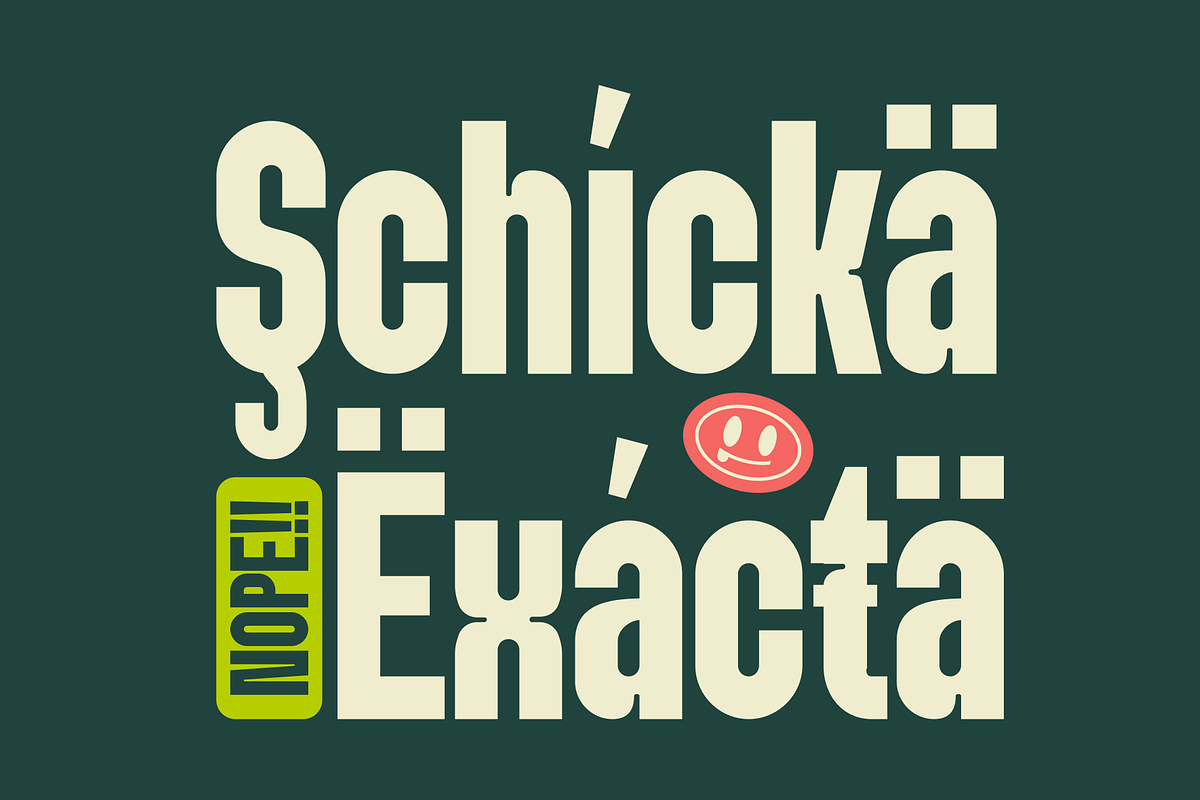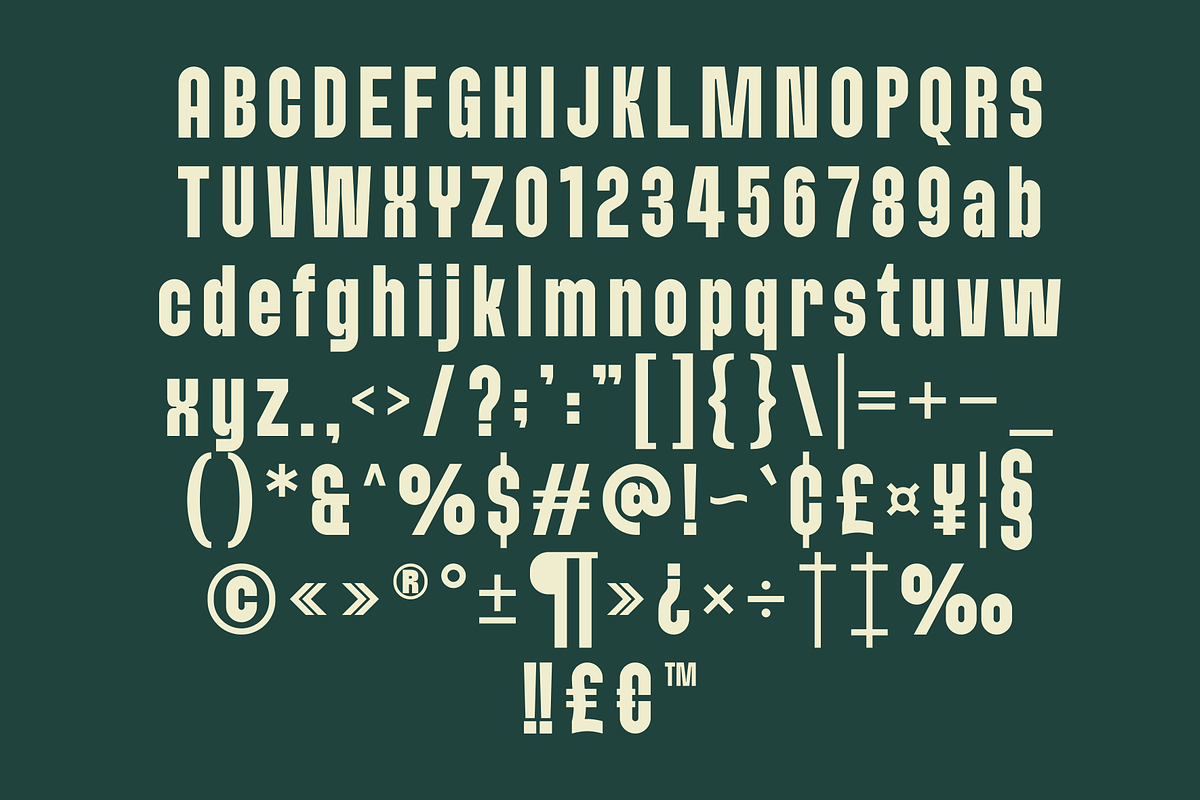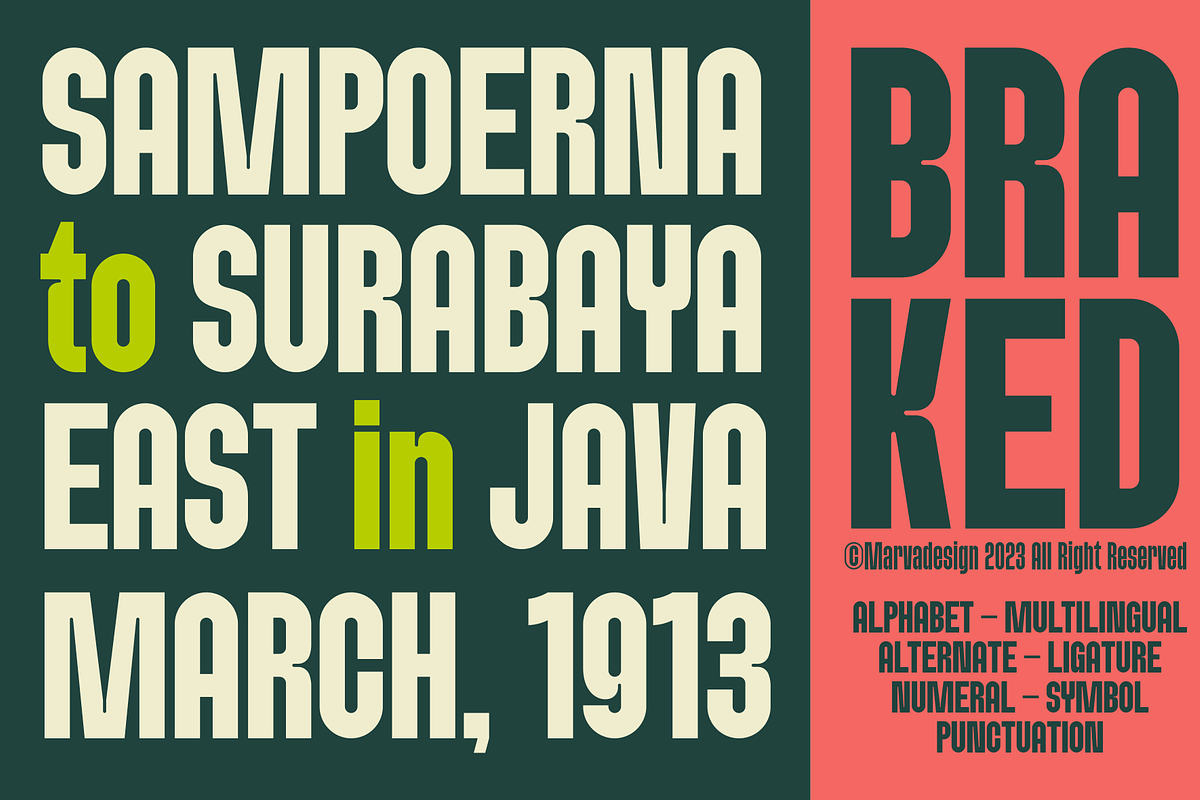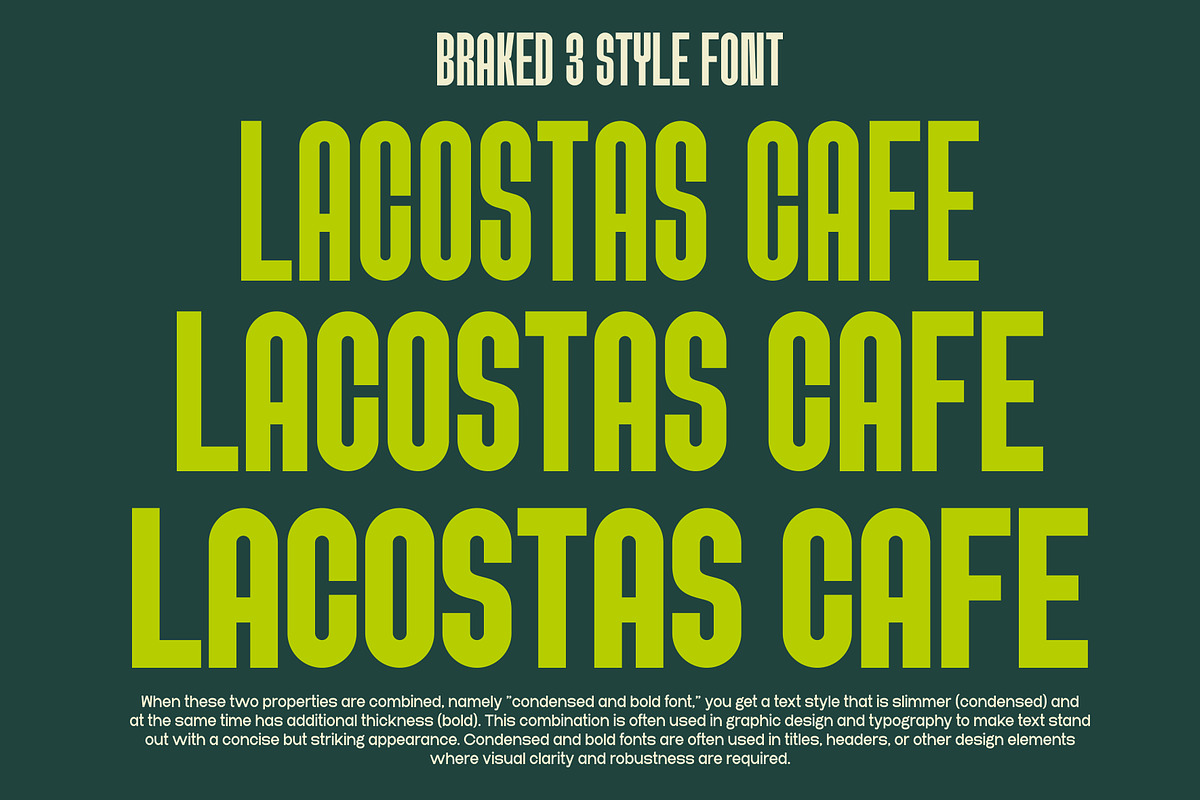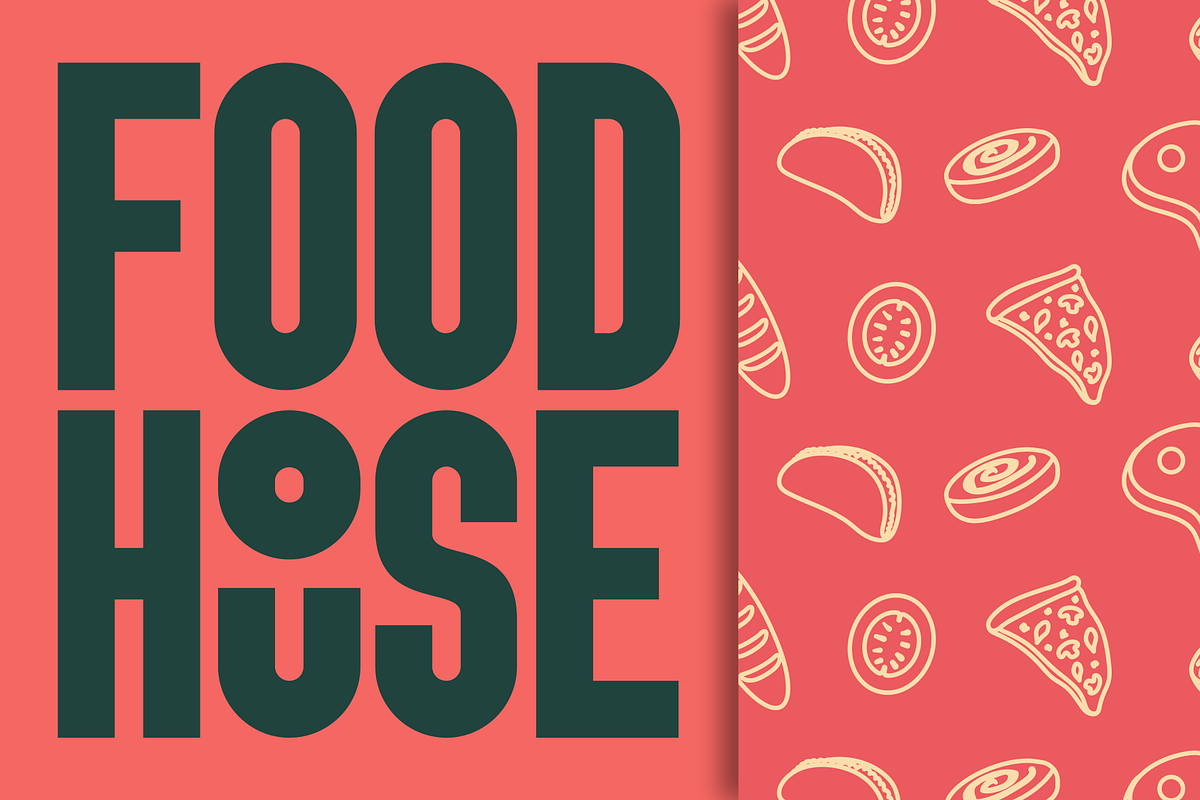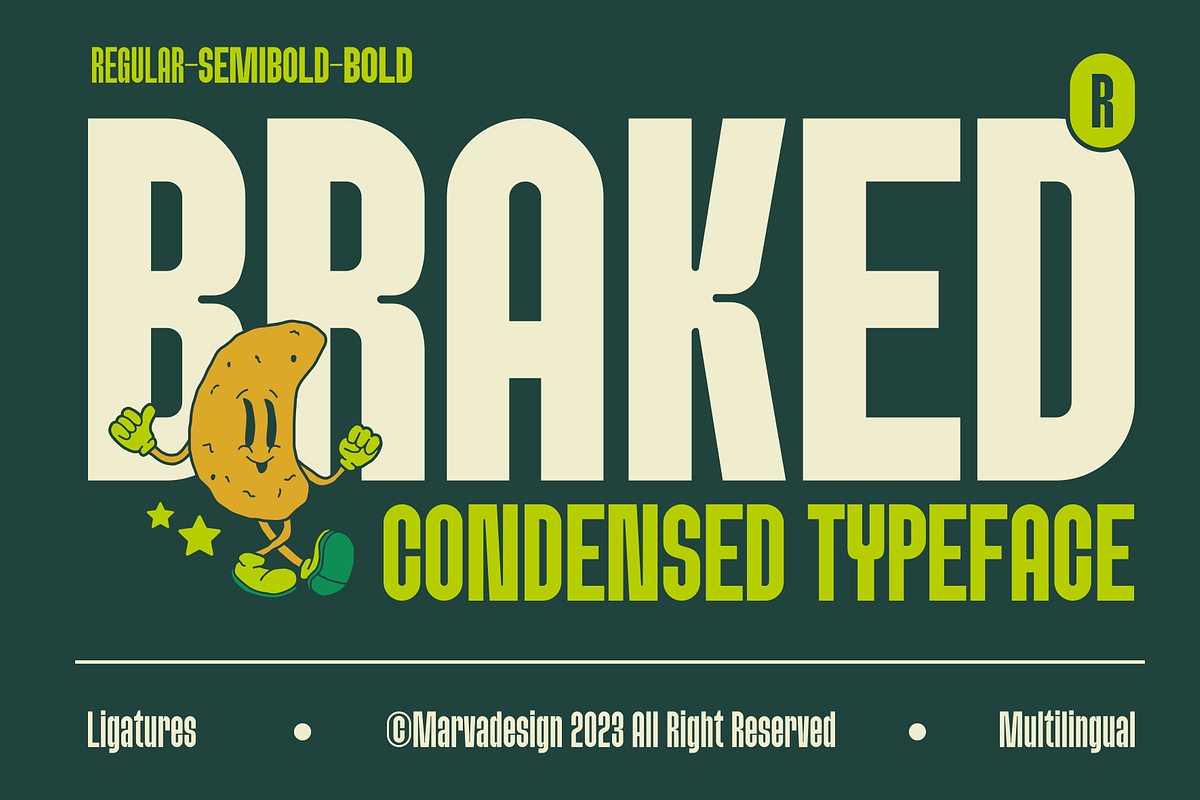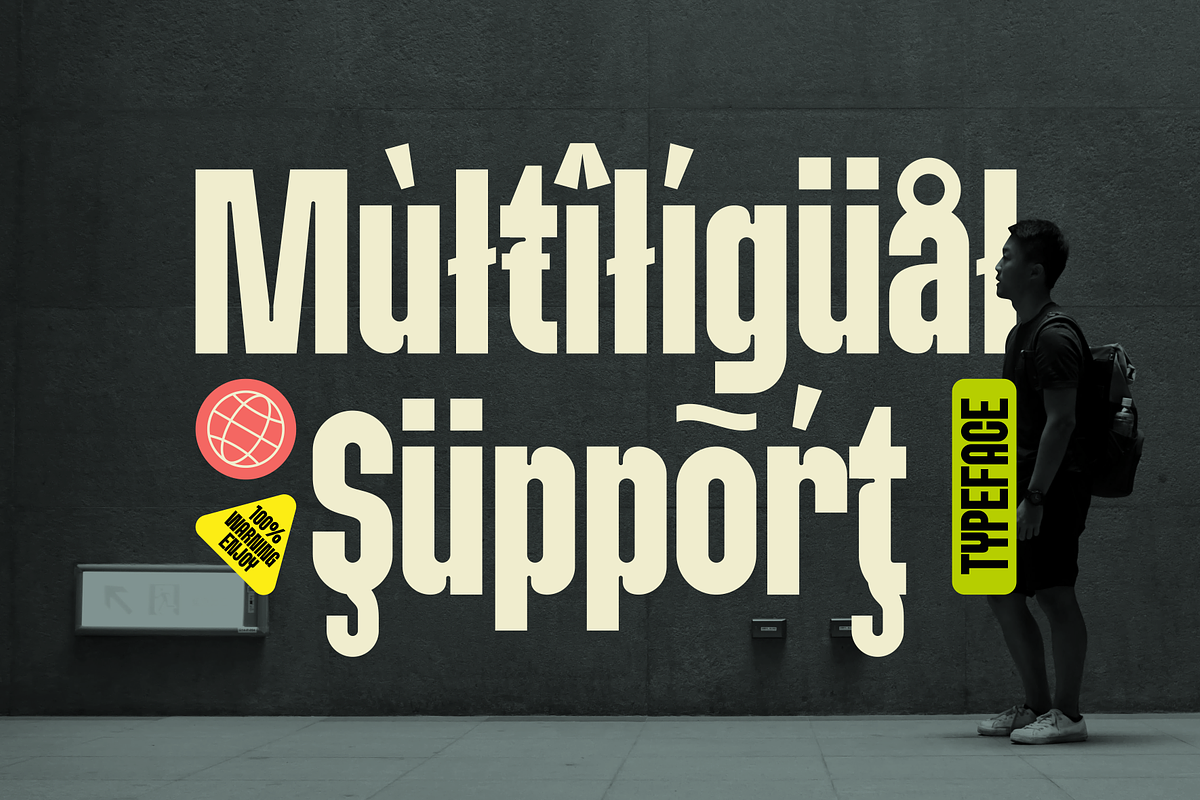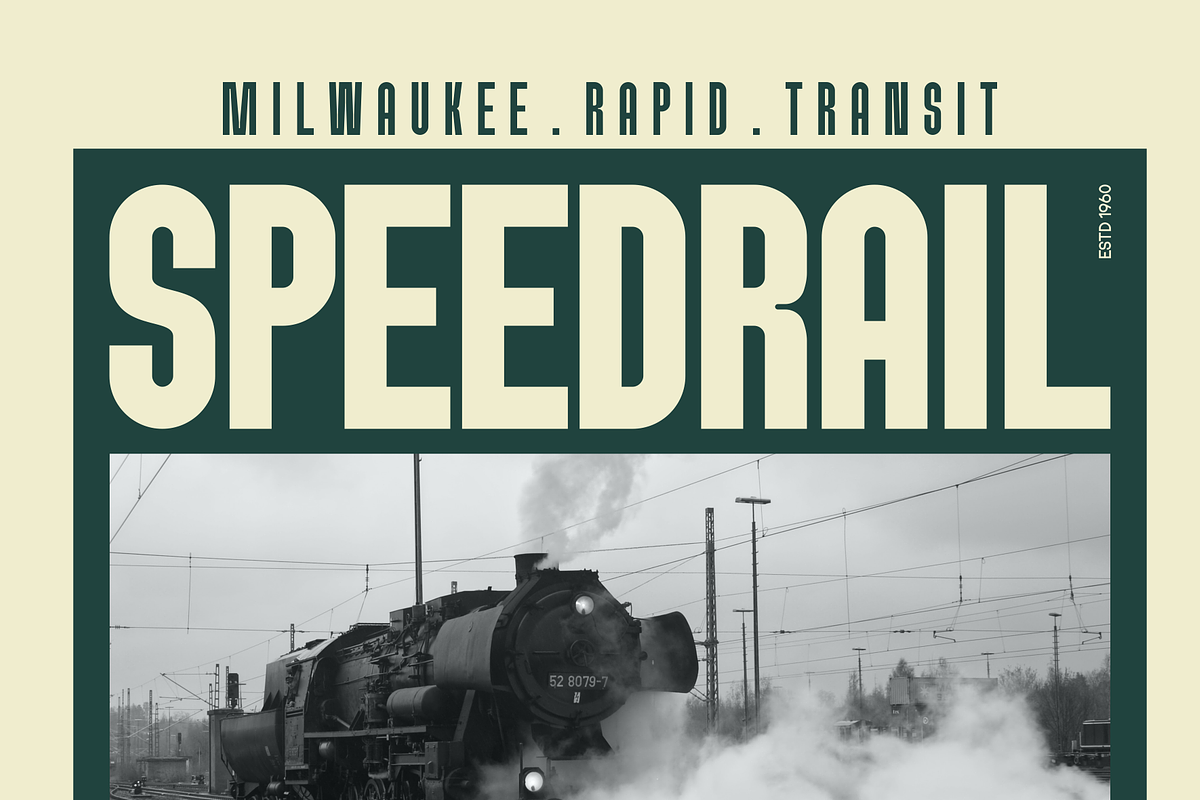
Braked - A Family Sans Condensed
Introducing Braked font is a condensed sans serif typeface, designed to offer a clean and modern aesthetic. It comes in three weight options: Regular, Semibold, and Bold, catering to a variety of design needs. A defining feature of this font is its unique character detailing, where small, rounded corners are subtly incorporated into the inward curves of the letters. This gives the typeface a distinct, soft touch while maintaining its sharp and structured appearance. The balance between its condensed form and rounded accents makes Braked an ideal choice for both professional and creative projects.